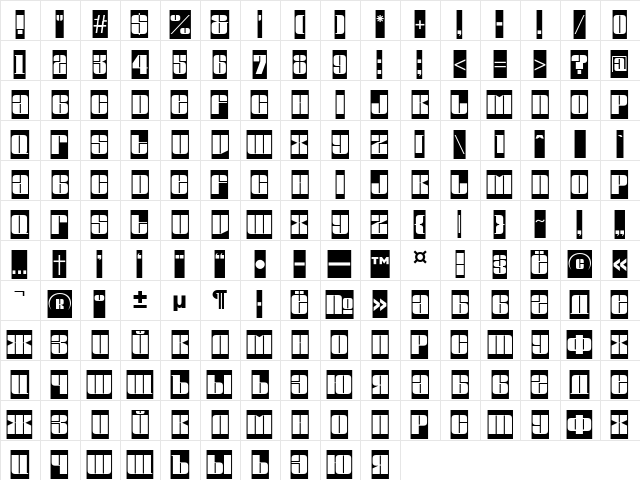
a_GlobusCm Regular
Design Context for a_GlobusCm Typeface
a_GlobusCm takes a measured approach to typography — its balanced proportions and neutral character make it a reliable workhorse for both digital and print work.